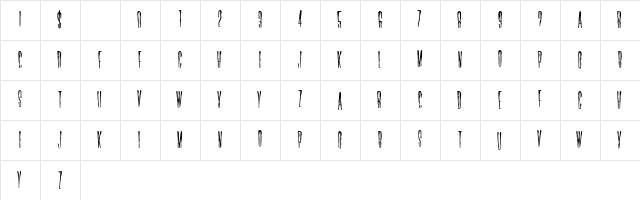
Horror Hotel
Design Context for Horror Typeface
Horror leans into the macabre with letterforms designed to disturb and intrigue in equal measure.
Perfect for anything that needs to unsettle — game titles, horror branding, and macabre invitations.
Font Pairing: Pair with a clean neutral sans-serif for body copy to let Horror's character lead without overwhelming the composition.
Pro Tip: Use Horror at larger display sizes for maximum impact. Consider generous tracking to let the disturbing character of each letterform breathe.